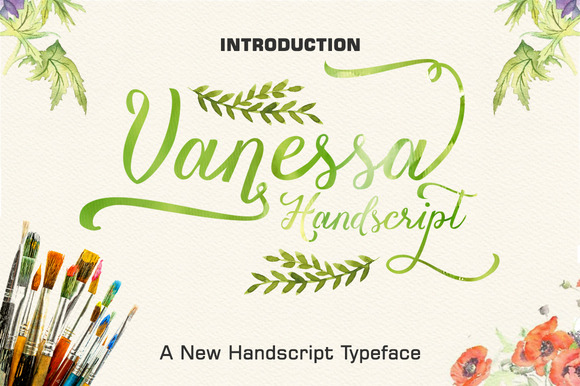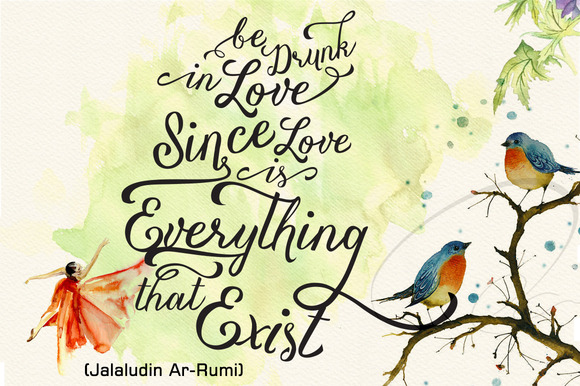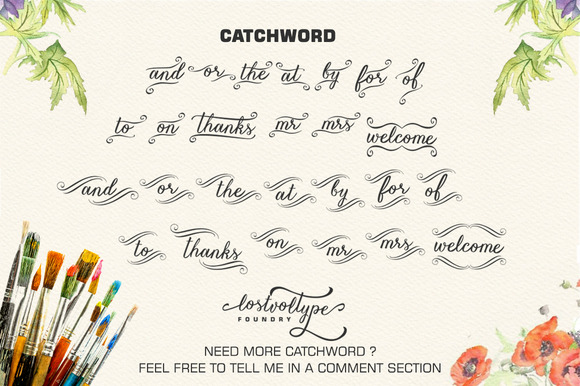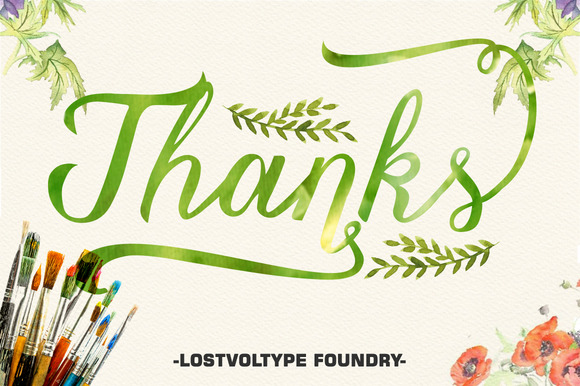
Vanessa Handscript Font
About Vanessa Handscript Font
Vanessa is a beautiful hand written font created by LostvolType.
This stunning font contains 402 unique characters of whichs 202 alternate characters. This PUA encoded font is filled with beautiful swashes and swooses.